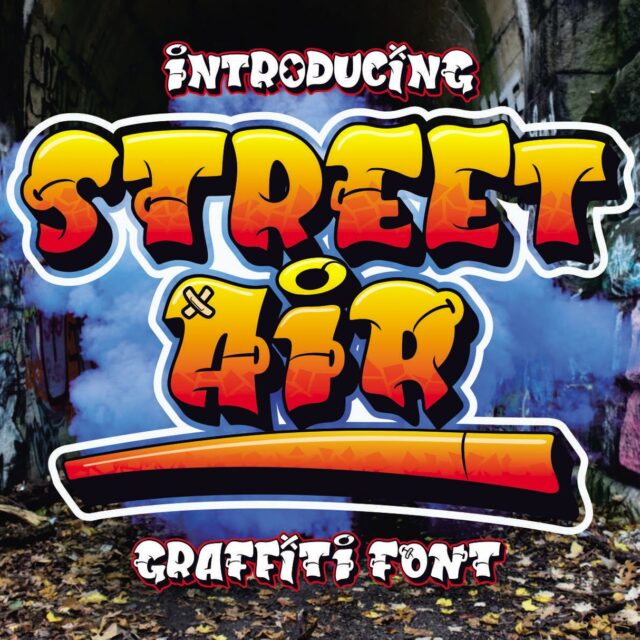
About Street Air Graffiti Font
“Street Air” is a dual-font family that includes both solid and outline versions in a graffiti style. This font collection offers two variations: a solid font, providing filled letters with a graffiti-inspired design, and an outline font, featuring the contours or outlines of the characters without a filled center.
The duo font family of “Street Air” is versatile, allowing you to use the solid version for a bold and filled graffiti effect, while the outline version offers a more distinct and open character structure. This font family can be utilized in various design projects, providing flexibility in creating diverse typographic styles within a graffiti theme.